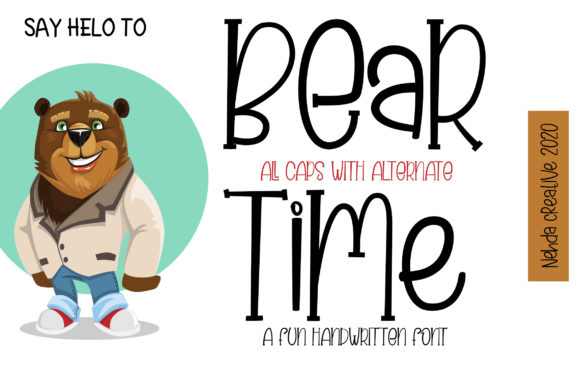
Bear Time Font
Behold, the whimsical and captivating Bear Time Font, a delightful masterpiece brought to you by the creative minds at khafalab. Step into a world of enchantment with this charming script font, crafted to inspire and ignite your creativity.
Bear Time Font is an all-caps treasure trove of cuteness, featuring a playful cast of alternate characters that add a touch of whimsy to your designs. Its natural and unique style seamlessly blends with a vast spectrum of design projects, beckoning you to explore boundless possibilities.
With Bear Time Font as your creative companion, you'll embark on an artistic odyssey where imagination reigns supreme. Whether you're weaving enchanting invitations, crafting heartfelt greeting cards, or designing captivating social media graphics, Bear Time Font will elevate your creations to new heights of charm and allure.
Immerse yourself in the world of Bear Time Font and let its infectious energy infuse your designs with a sense of joy and playfulness. Experience the magic as your words dance across the page, adorned with the endearing quirks and delightful details that make this font truly irresistible.
Unleash your creativity and let Bear Time Font be your guide. Its versatility knows no bounds, inviting you to explore a boundless realm of design possibilities. From whimsical logos that capture attention to enchanting branding materials that leave a lasting impression, Bear Time Font is your key to unlocking a world of captivating designs.